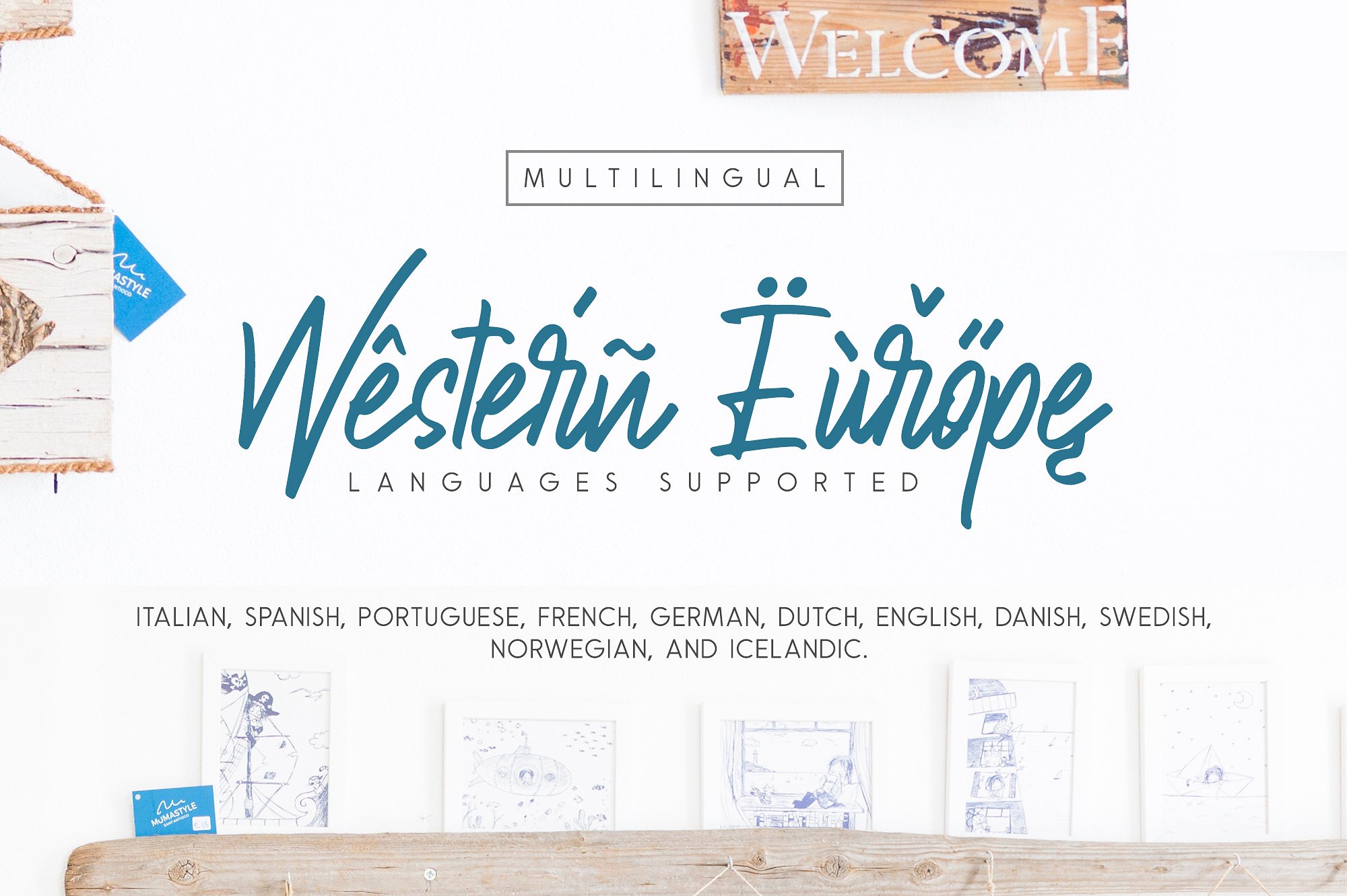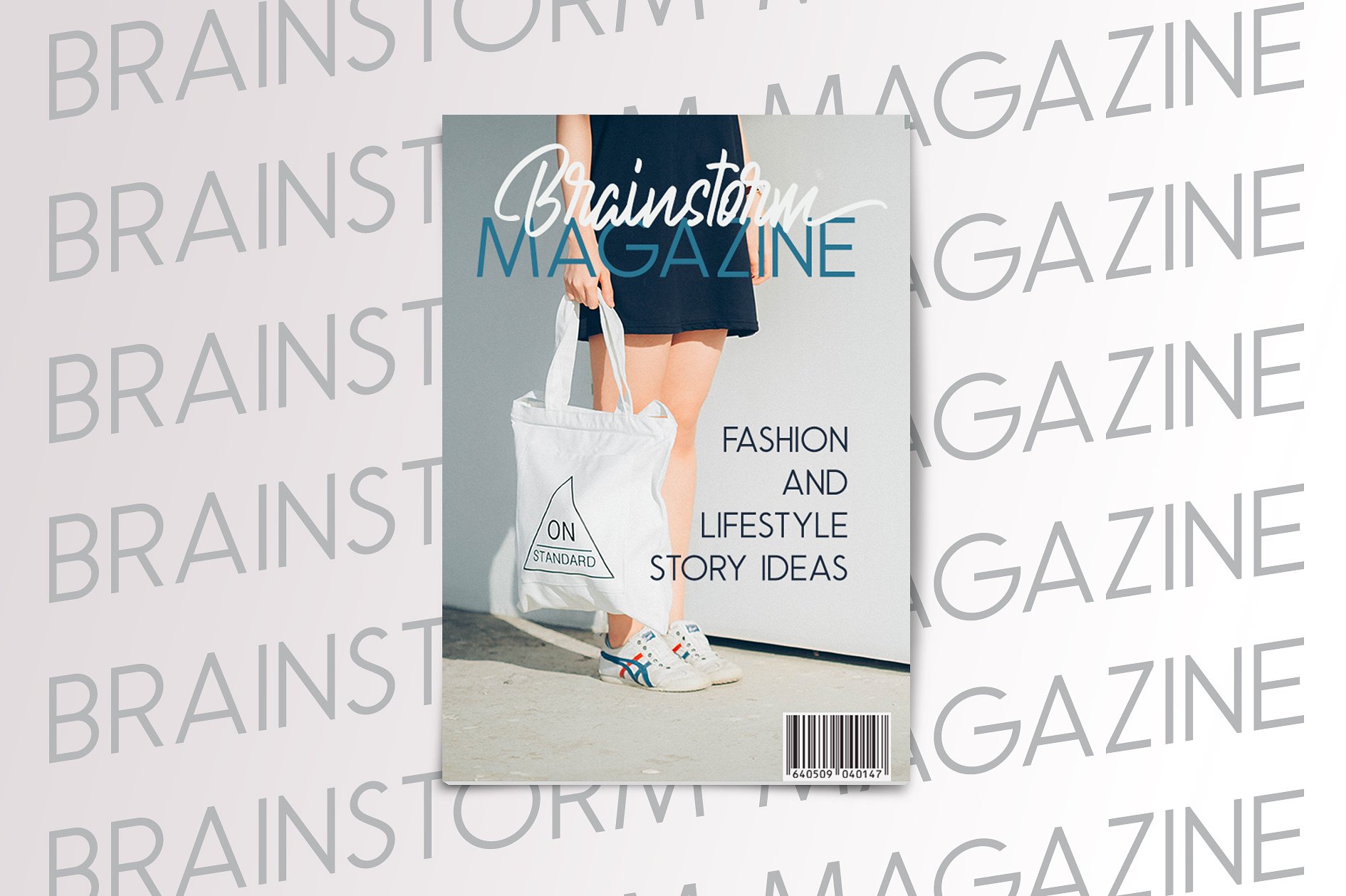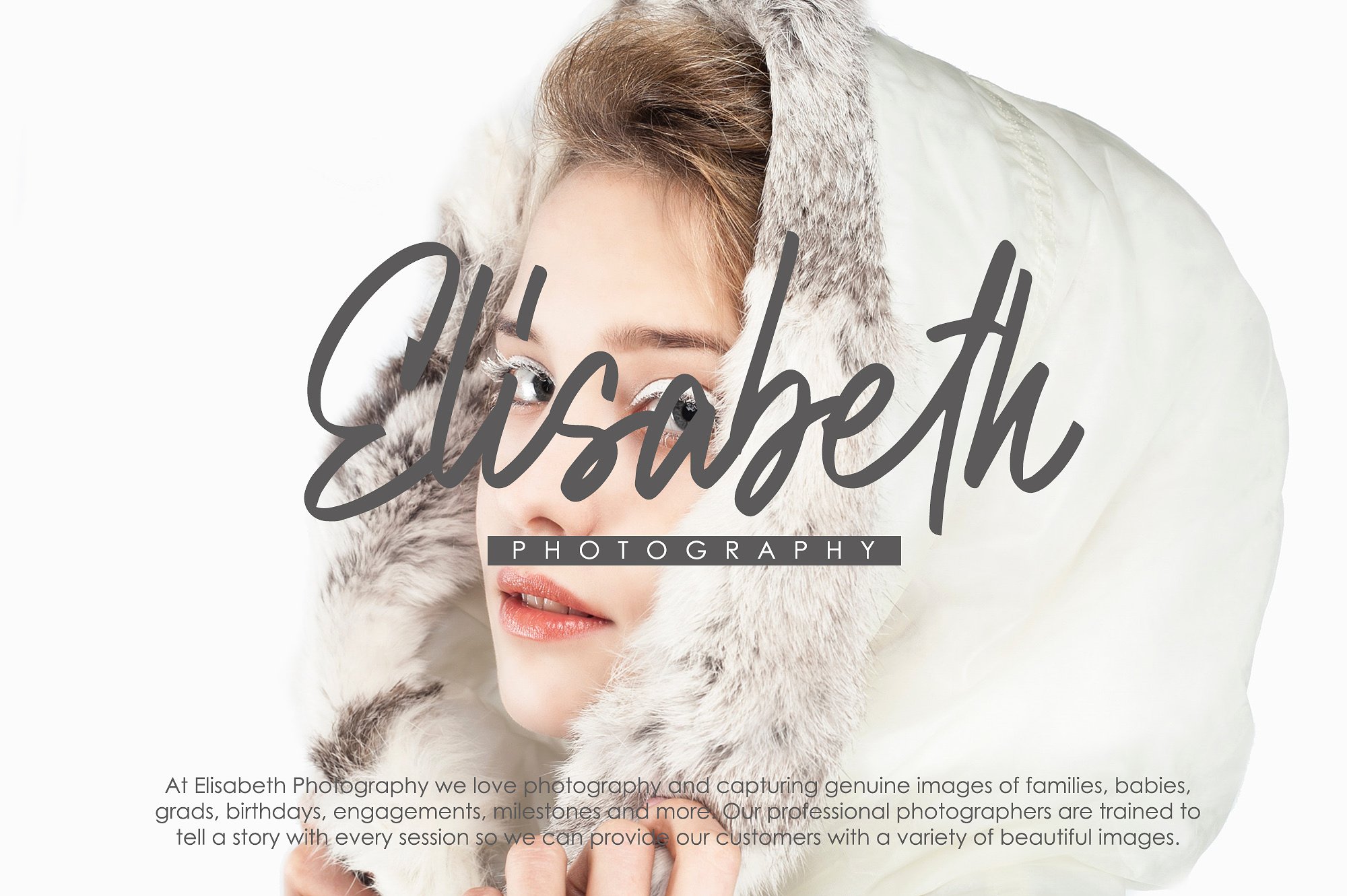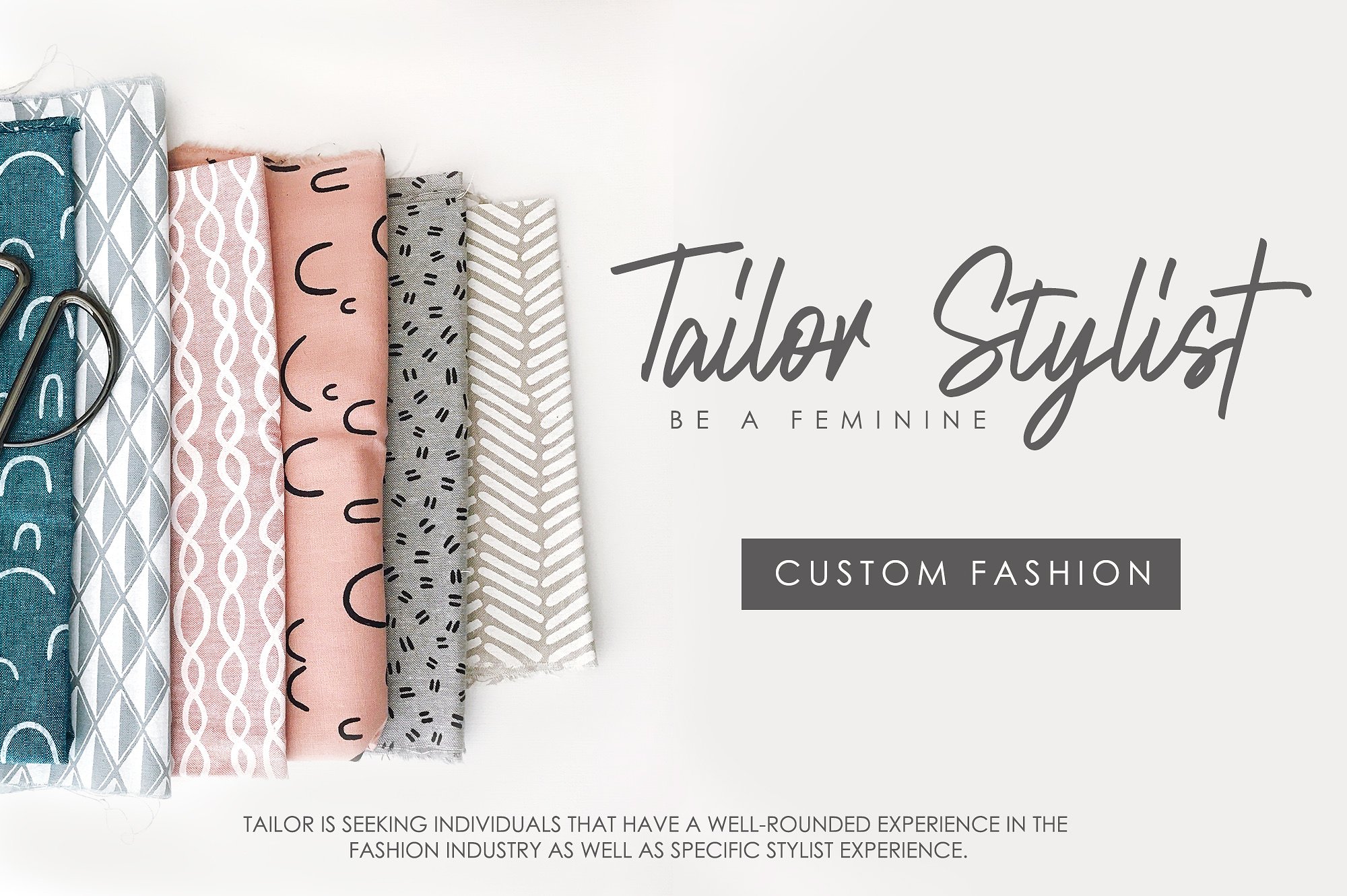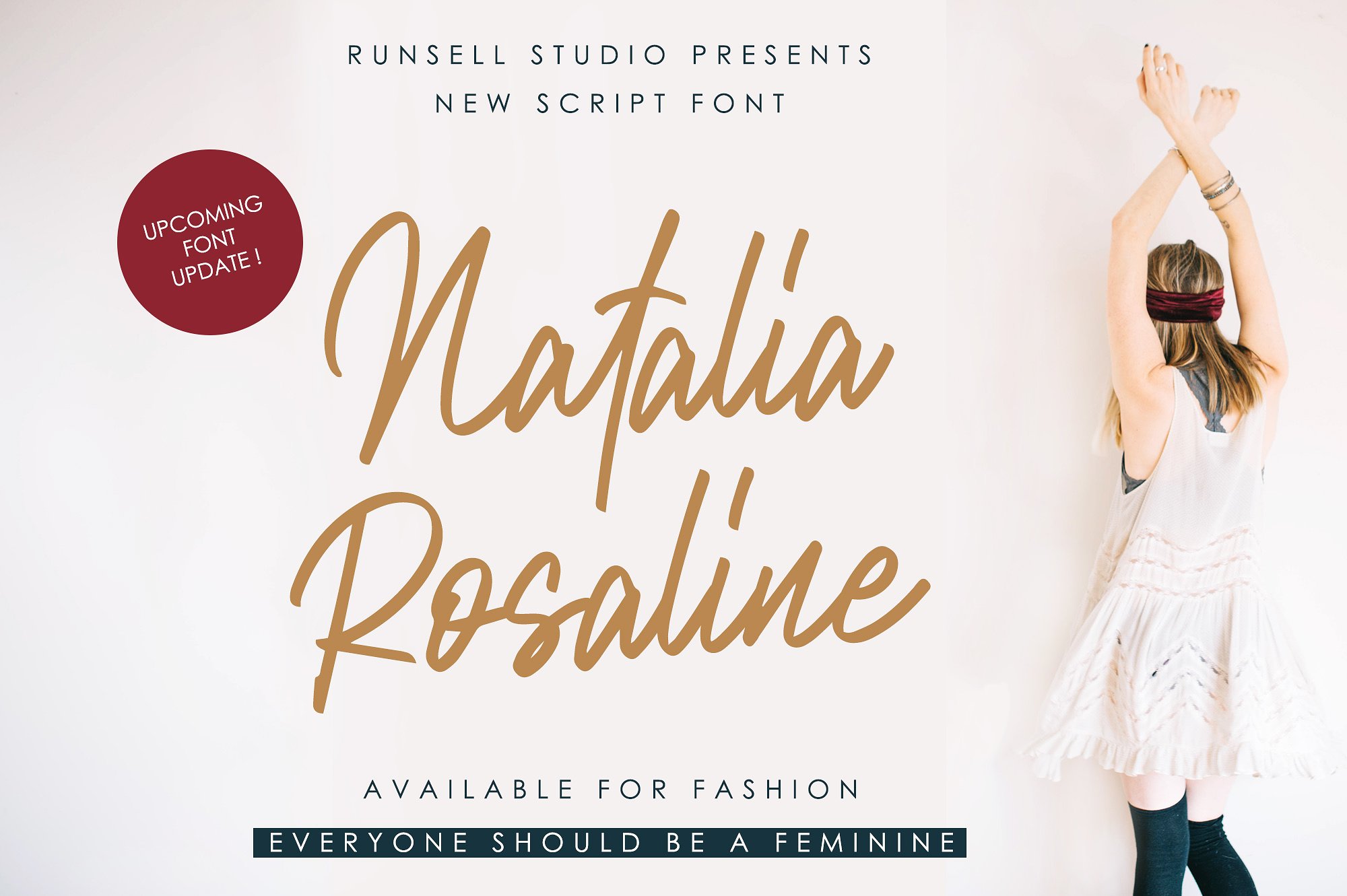
Natalia Rosaline Font Duo
A font that is special for fashion. Introducing Natalia Rosaline. This font matches applies in some designs such as the logotype, magazine, headline blog or website, packaging, branding, and more products. This font has a feminine impression. Natalia Rosaline there will be update features and other interesting fonts for extra bonus. This font is always exciting to design you create.